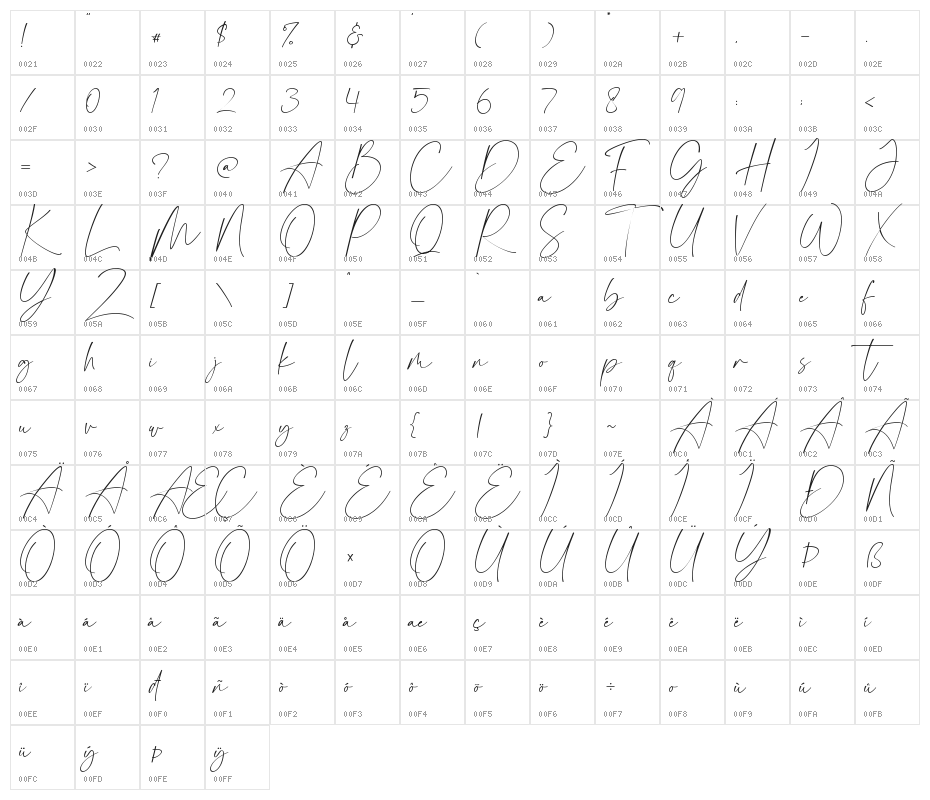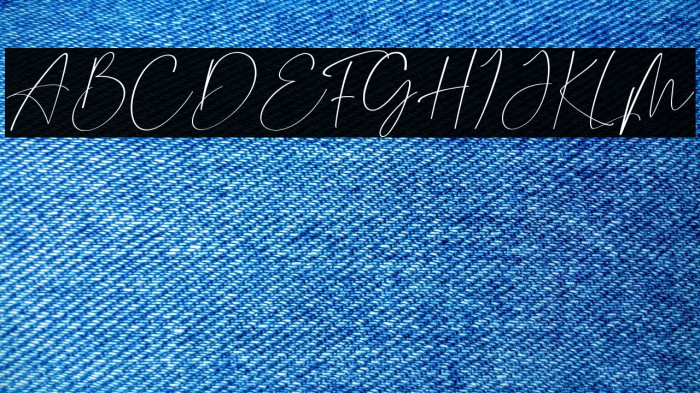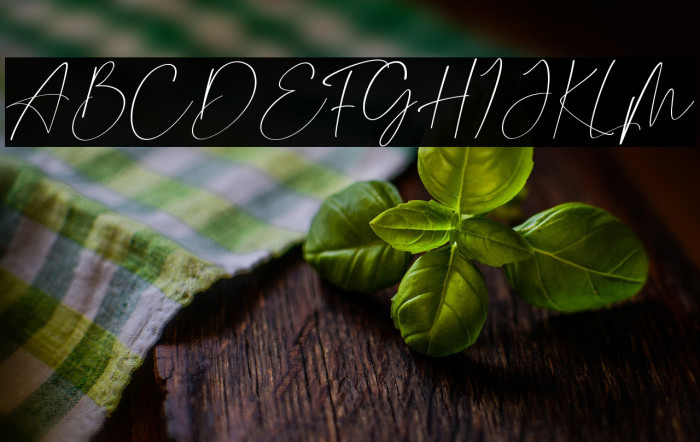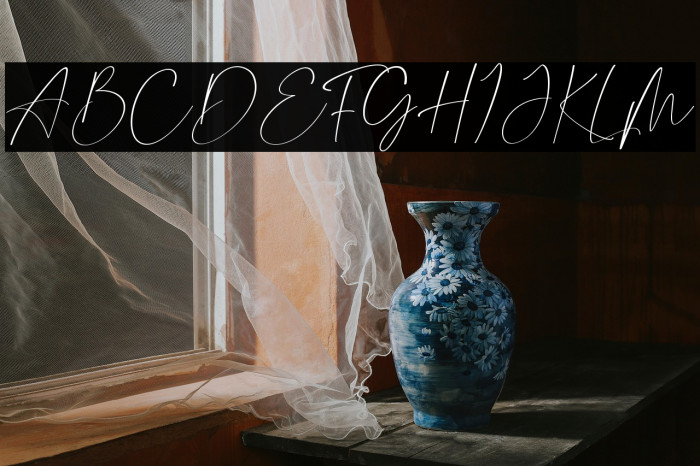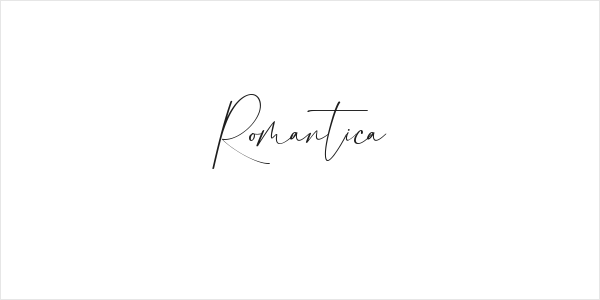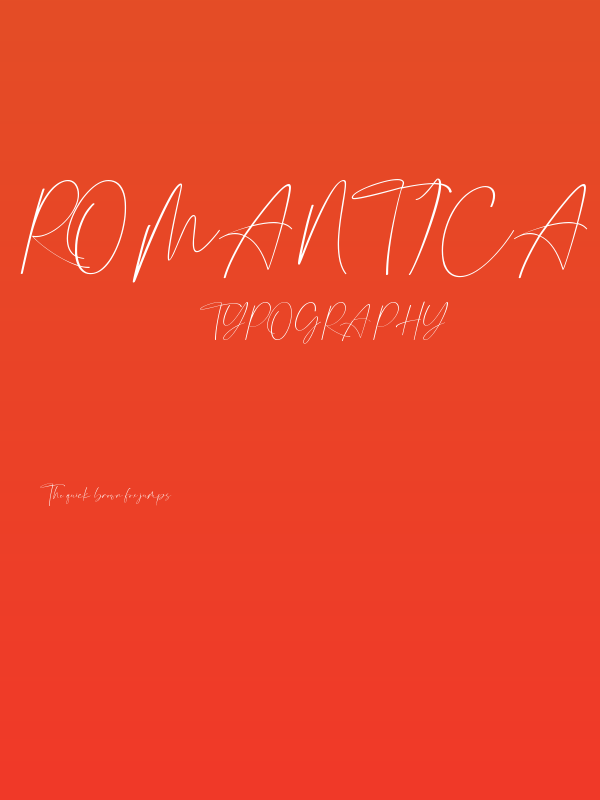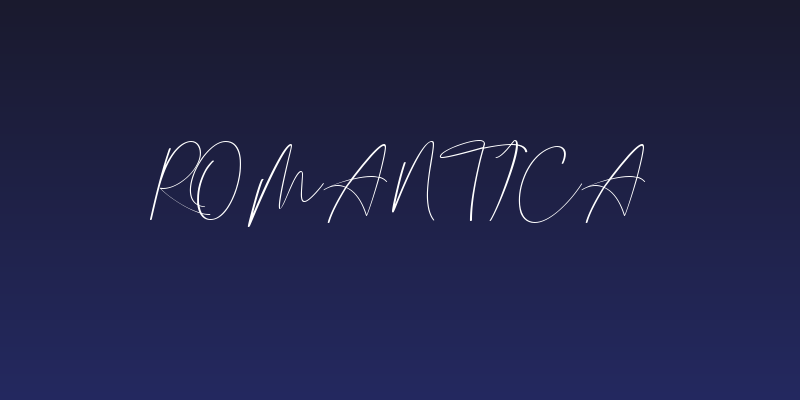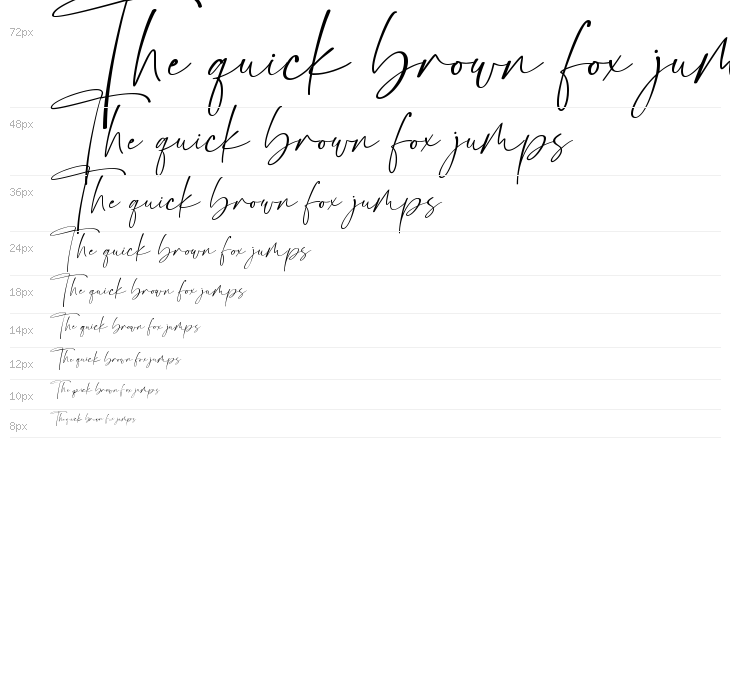
Romantica Font
Romantica Description
This font exudes a romantic and elegant style, characterized by its flowing, cursive script. The letters are crafted with a delicate touch, featuring thin lines and graceful curves that give it a handwritten appearance. The uppercase letters are slightly more structured, while the lowercase letters exhibit a more fluid and natural flow. Numbers and special characters maintain the same elegant style, ensuring consistency across all elements. This font is perfect for adding a personal and sophisticated touch to any project.
| Overall Style | Romantic |
| Proposed Projects | Ideal for wedding invitations, greeting cards, personal branding, and romantic-themed designs. |